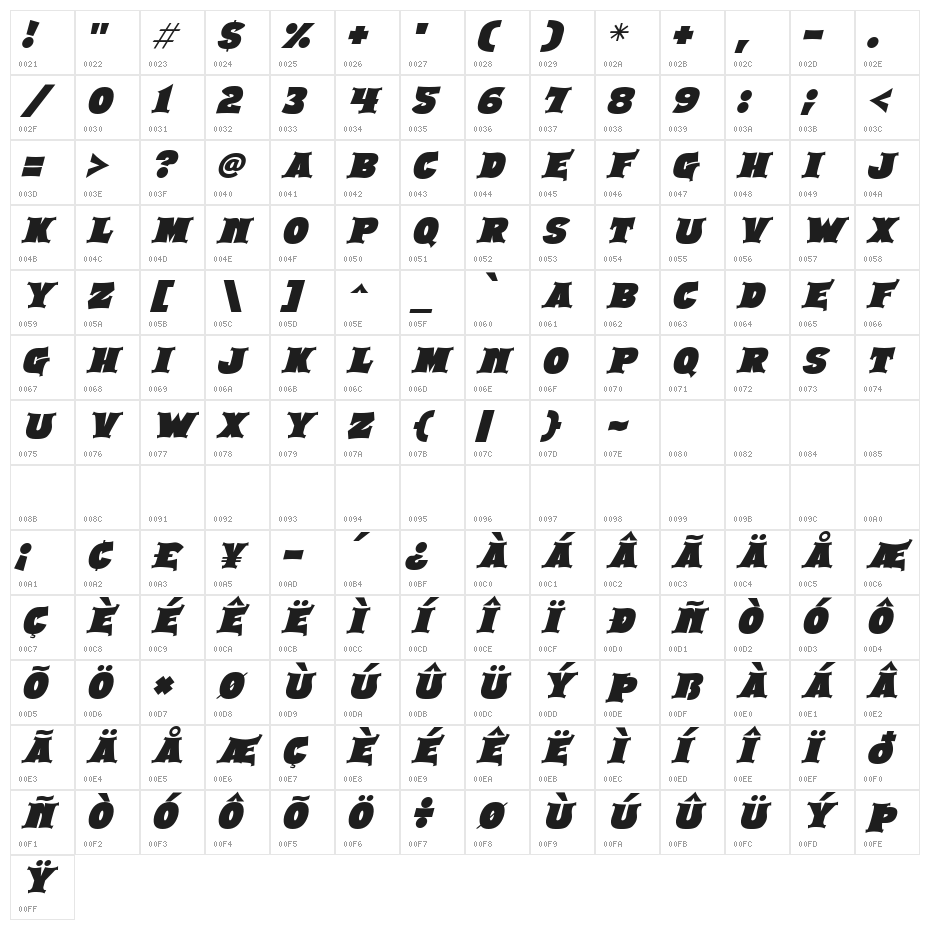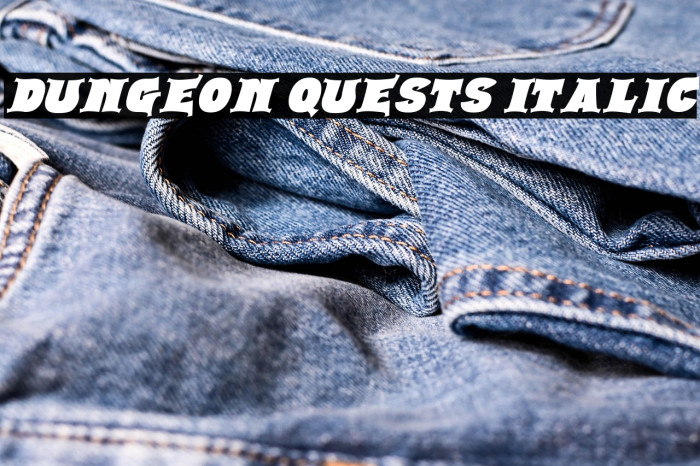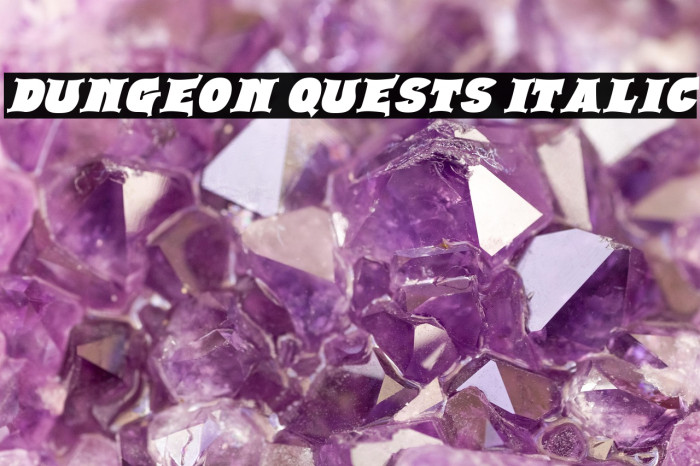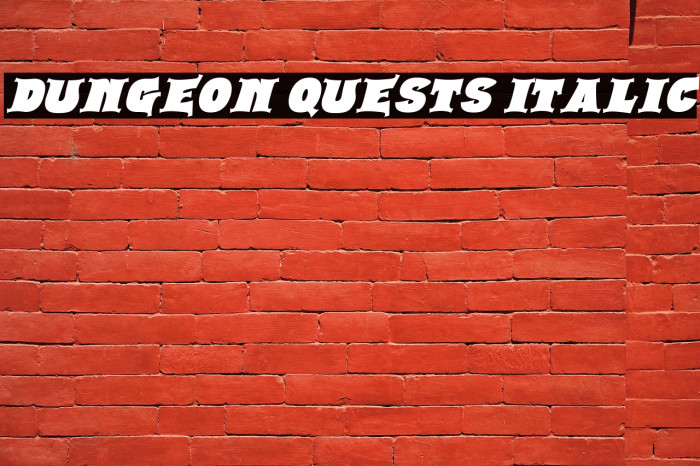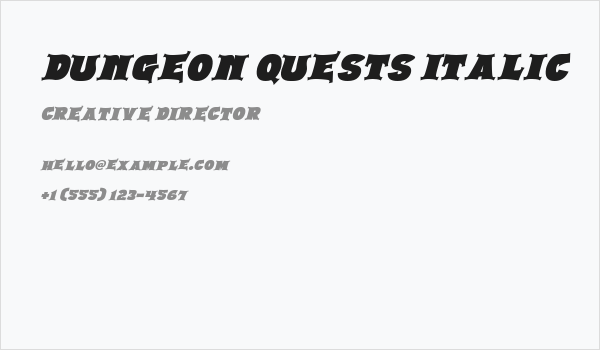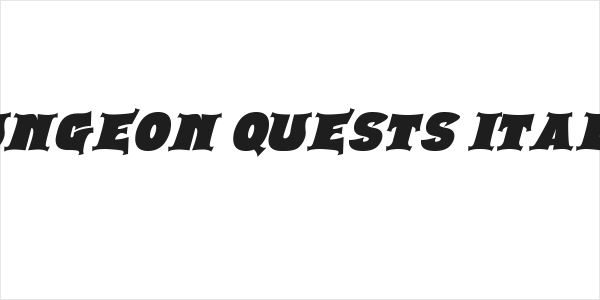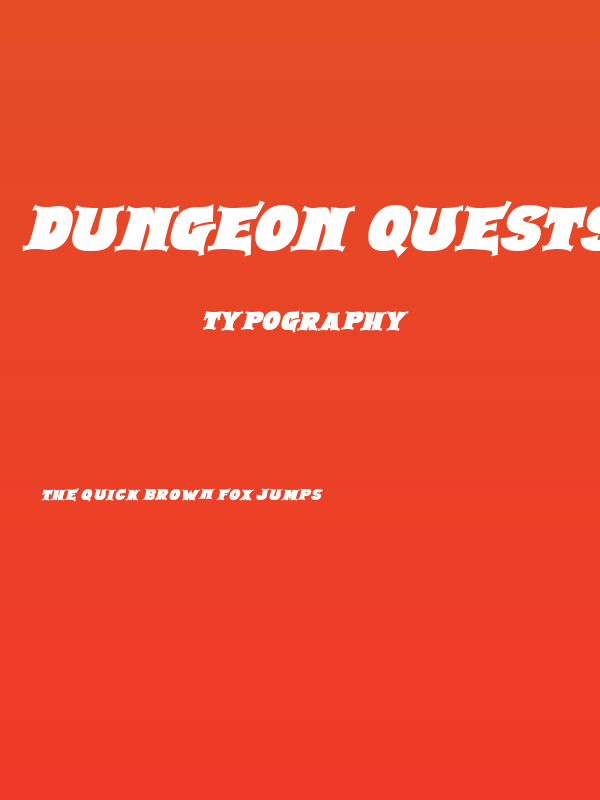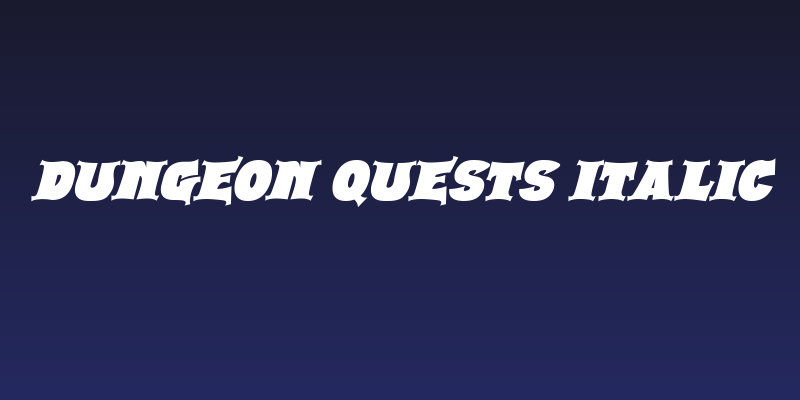
Dungeon Quests Italic Font
Dungeon Quests Italic Description
This font features a bold and dynamic style with a strong presence. The characters are designed with sharp, angular edges and a slightly condensed form, giving it a powerful and adventurous look. The italic slant adds a sense of motion and urgency, making it ideal for themes related to action or fantasy. The uppercase and lowercase letters maintain a consistent design, ensuring readability while retaining their unique flair. The numbers and special characters are equally bold, complementing the overall aesthetic. This font is perfect for projects that require a dramatic and eye-catching typeface.
Proposed ProjectsIdeal for fantasy-themed games, movie posters, book covers, and adventure branding.